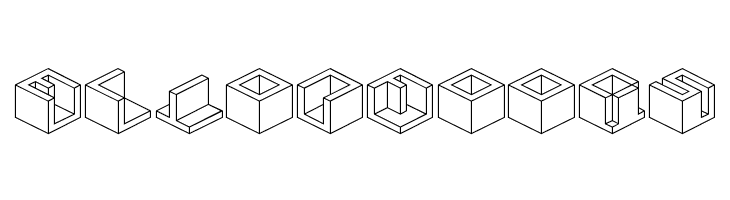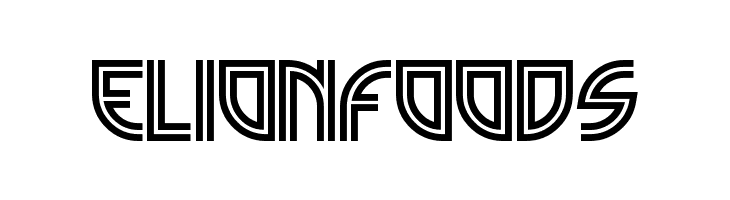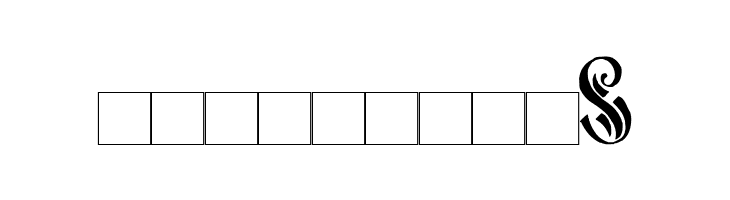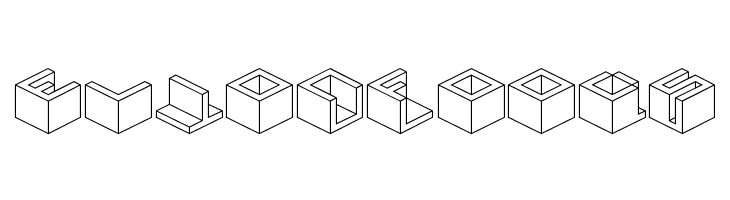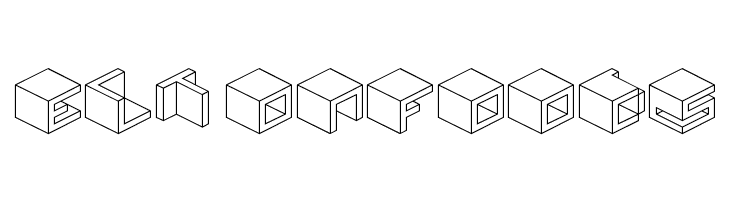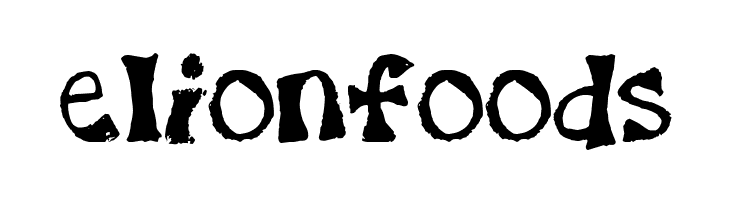
A futuristic, boxy font with a digital and geometric style.
A 3D isometric font with bold, geometric cube-like characters.
A bold, geometric font with a futuristic and architectural style.
Elegant capital letters with a focus on symmetry and geometric precision.
A 3D geometric font with characters enclosed in cube-like structures, offering a futuristic and architectural style.
A 3D cubic font with characters formed by negative space, offering a futuristic and architectural style.
A modern, rounded sans-serif font with uniform stroke width and excellent readability.